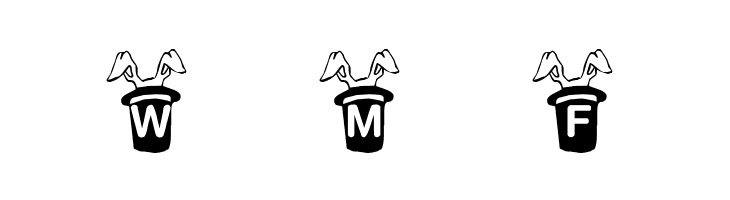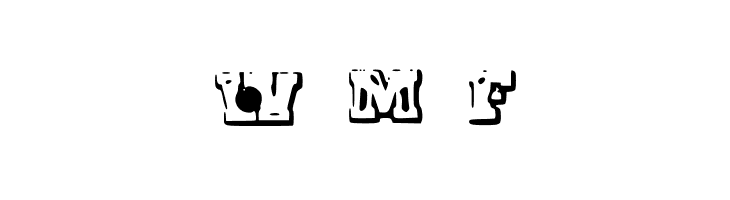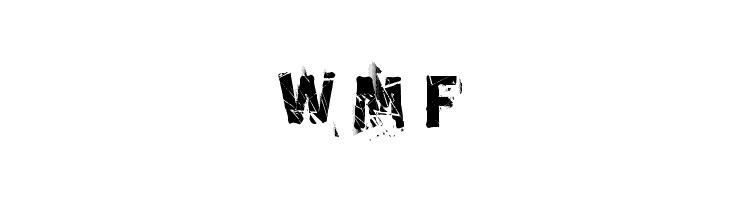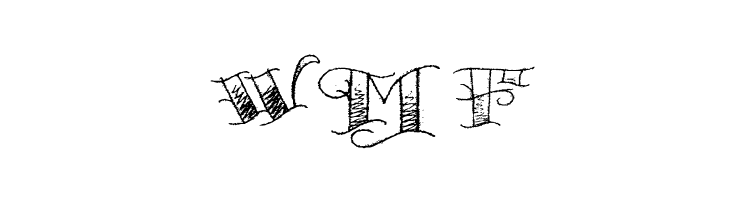
A playful font with characters emerging from magician's hats, ideal for whimsical projects.
A bold, decorative font with a distressed, vintage texture.
A bold, geometric font with cultural flair and high legibility.
A bold, decorative font with a unique, ancient script-inspired style.
An elegant Arabic-style font with flowing, traditional calligraphic elements.
A playful, vintage-style font with bold outlines and dotted textures.
A bold, distressed font with a grunge, fragmented appearance.
A bold, italicized font with a dynamic and energetic style.
A rugged, wood-textured font with a hand-drawn, rustic appearance.
A bold, distressed font with a grunge aesthetic and rugged texture.
A whimsical, decorative font inspired by vintage circus posters.
A bold, decorative font with star and stripe patterns, ideal for playful designs.
A distressed, vintage-style font with a worn, gritty texture.
A bold, distressed font with a vintage, western saloon style.
A decorative font with letters styled as grand pianos and pianist silhouettes.
A bold, festive font displayed on triangular pennants, ideal for celebrations.
A bold, spooky font with a playful, hand-drawn outline.
A bold and ornate blackletter font with intricate details and historical elegance.
A bold, alien-like script with rounded shapes and a mysterious aesthetic.
A bold, angular, and italicized font inspired by ancient runic alphabets.
A steampunk-inspired decorative font with intricate mechanical details.